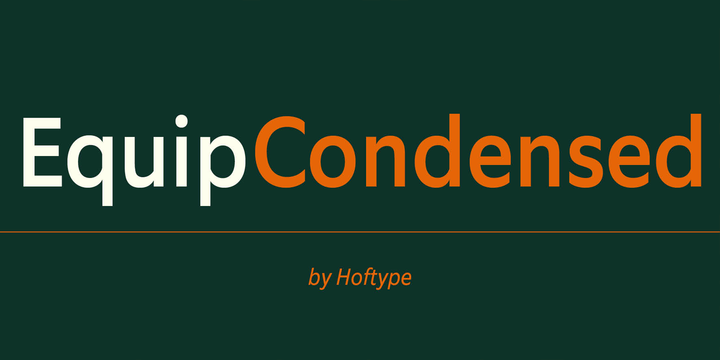
EquipCondensed is the matching complement for Equip and EquipExtended. With its 16 fonts it extends the Equip family to 48 styles. It not only works superbly as a contrasting face for the ‘normal’ Equip but due to its moderate width, it also performs brilliantly as a space saving typeface.
EquipCondensed is very well suited for ambitious typography. More…